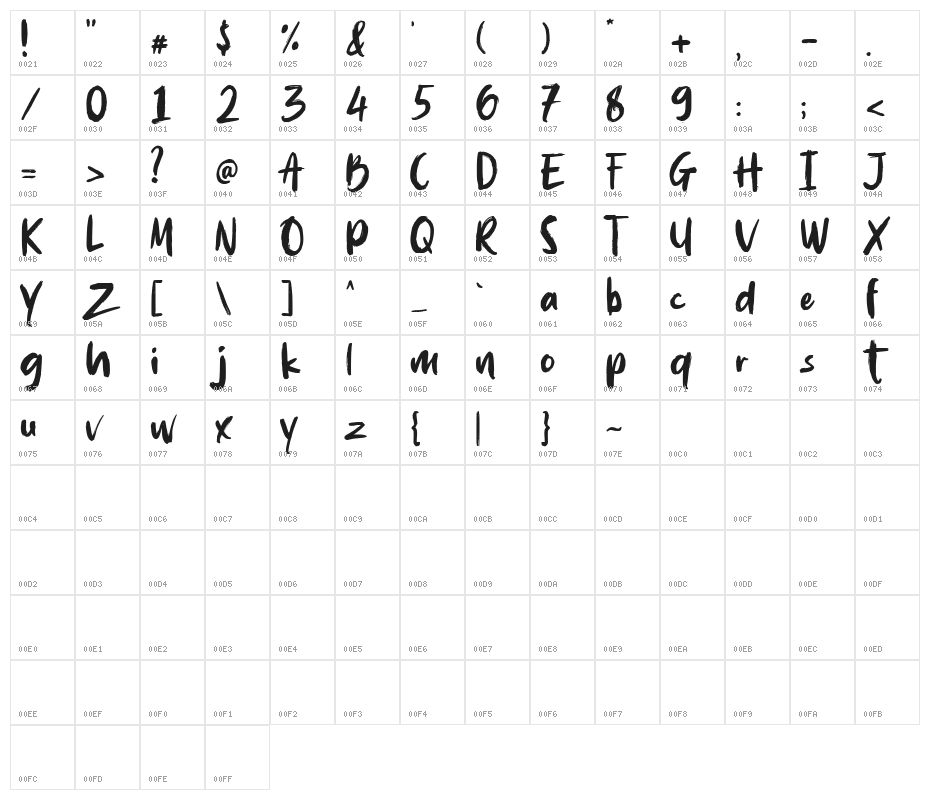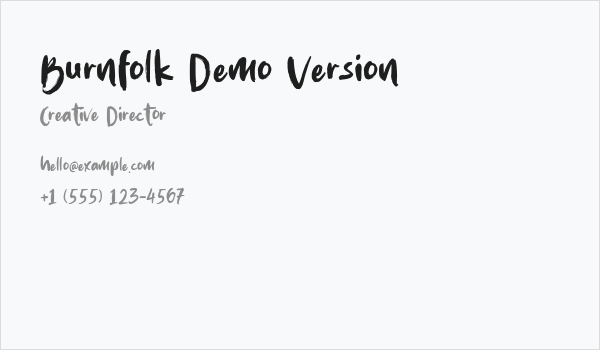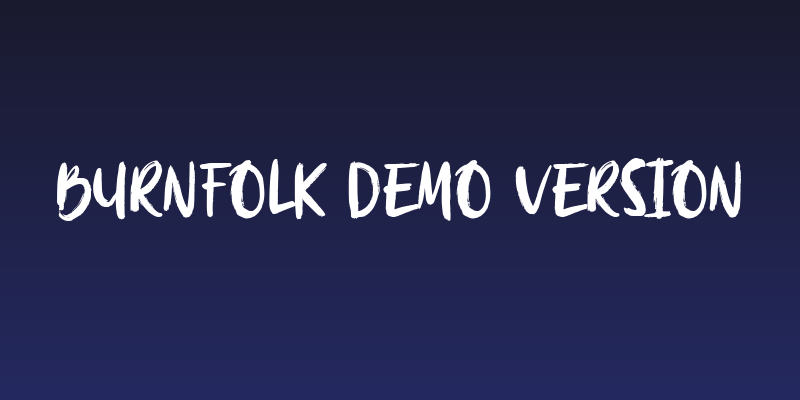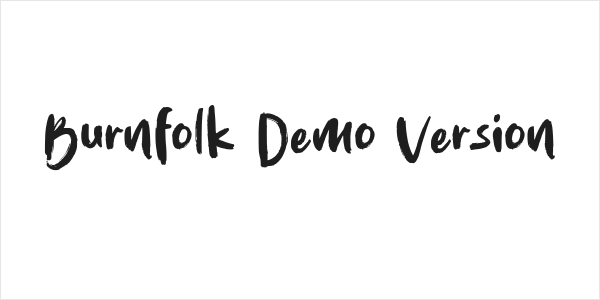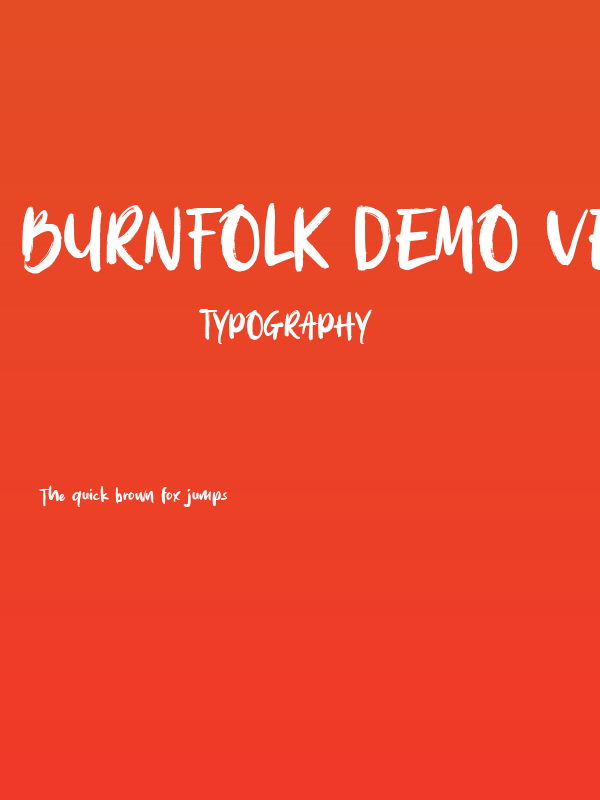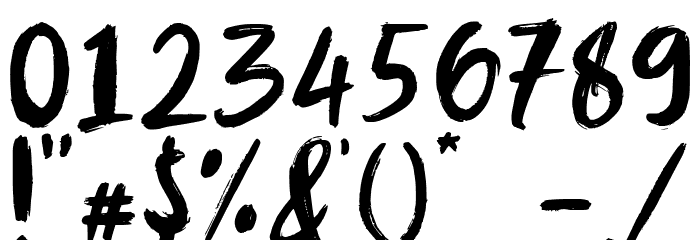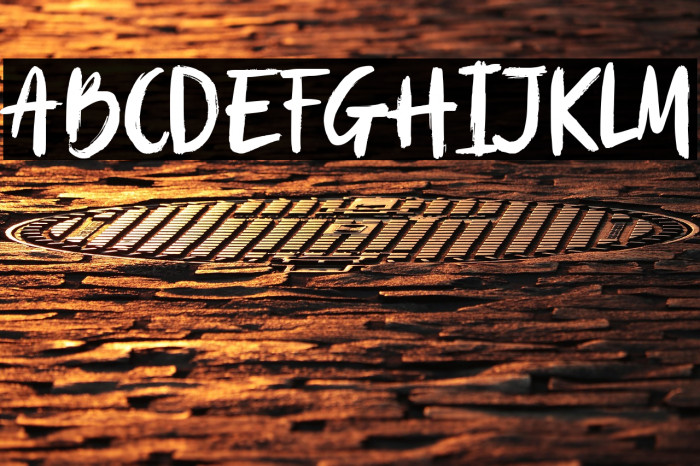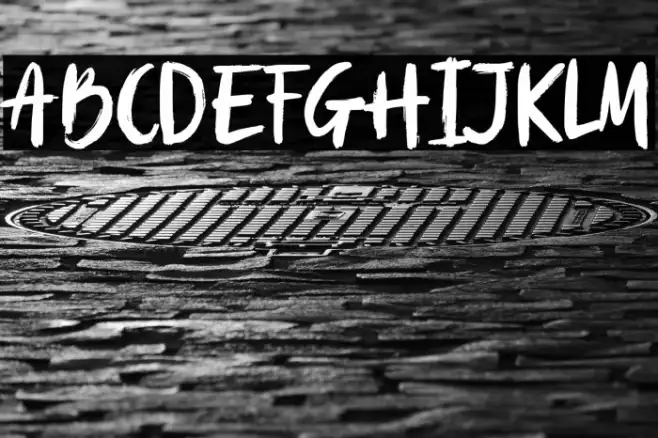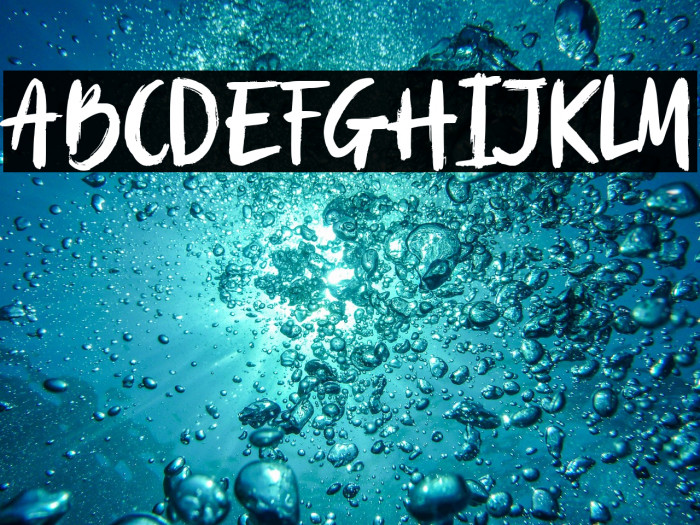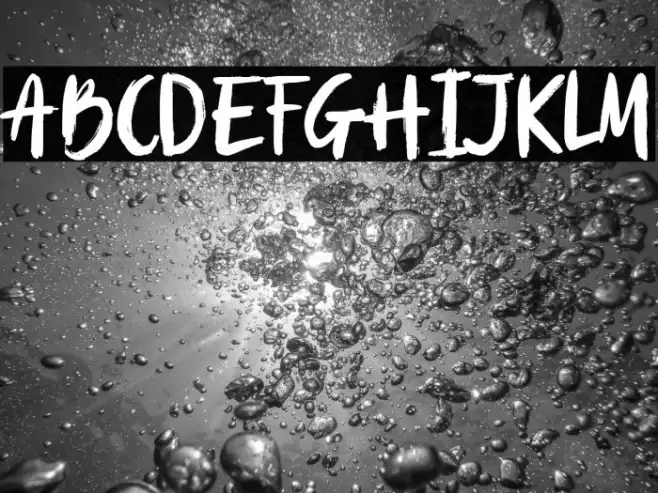
Burnfolk Demo Version Font
Burnfolk Demo Version Description
This font exhibits a bold and expressive handwritten style, characterized by its brush-like strokes and dynamic flow. The uppercase and lowercase letters maintain a consistent thickness, giving the font a cohesive appearance. The numerals and special characters are crafted with the same energetic flair, ensuring uniformity across all glyphs. The font's organic and slightly irregular shapes evoke a sense of creativity and spontaneity, making it ideal for projects that require a personal touch. Its bold presence and artistic nature make it suitable for eye-catching designs.
| Proposed Projects | Ideal for branding, posters, social media graphics, and creative projects that require a personal and artistic touch. |